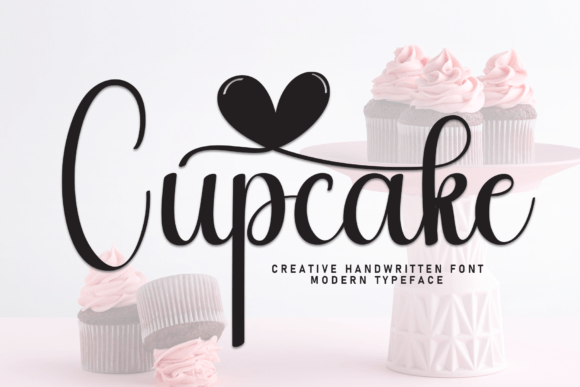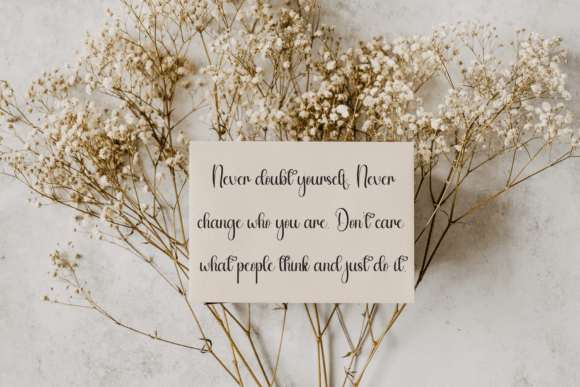
Cupcake Font
Delight in the charming appeal of this handwritten font – a creation brimming with sweetness and friendliness. Infusing a fun twist into every character, it’s a winning choice for crafting personalized wedding invitations, engaging cards, and anything else that requires a playful flourish. With every stroke, it encapsulates a sense of joy and merriment, transforming your everyday designs into something extraordinary. Don’t just write, make a statement with this captivating and whimsical font.